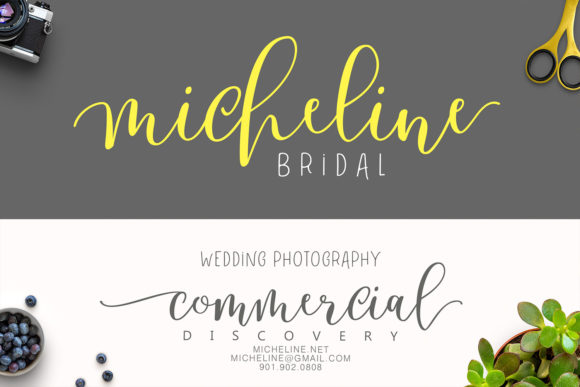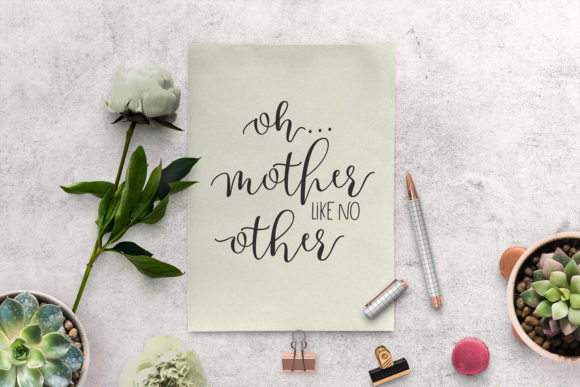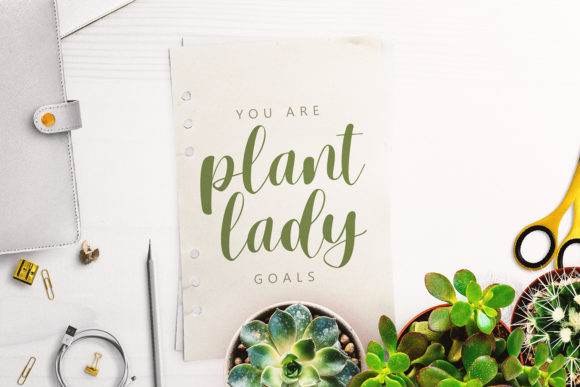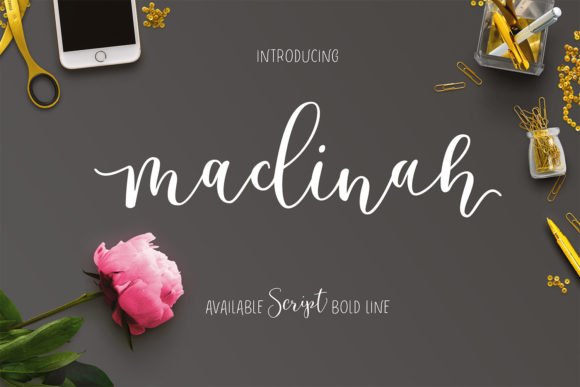
Introduction to Madinah Script Font
Madinah is a beautiful duo-style script font with pleasingly updated calligraphy hand variations that have been given an additional hand-written combination of brush and ink.
This font will look beautiful on all designs, Wedding designs, branding materials, blog titles, quotes and invitations, business cards This font is PUA encoded, which means you can access all of the glyphs and swashes with ease.
Key Features of Madinah Script Font
Why Choose Madinah Script Font?
Madinah Script Font offers exceptional quality and versatility, making it a valuable addition to your design toolkit. Whether you’re creating for personal projects or commercial use, Madinah Script Font delivers professional results.